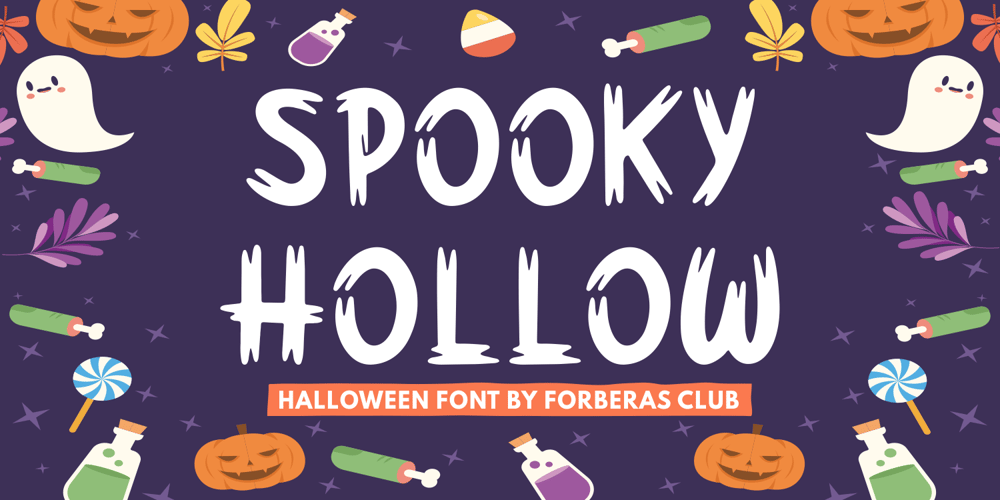
Spooky Hollow Font Family was designed by ANGGI HERMAWAN and published by Forberas Club. Spooky Hollow contains 1 styles and family package options. ntroducing Spooky Hollow by Forberas, yet playful but still serious. You can use this as decorative material for your upcoming project.